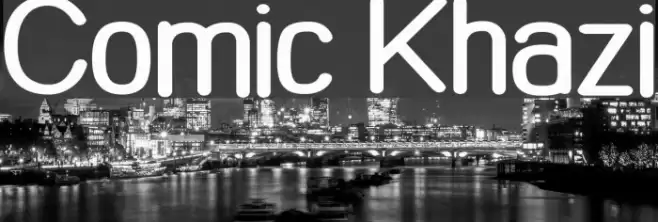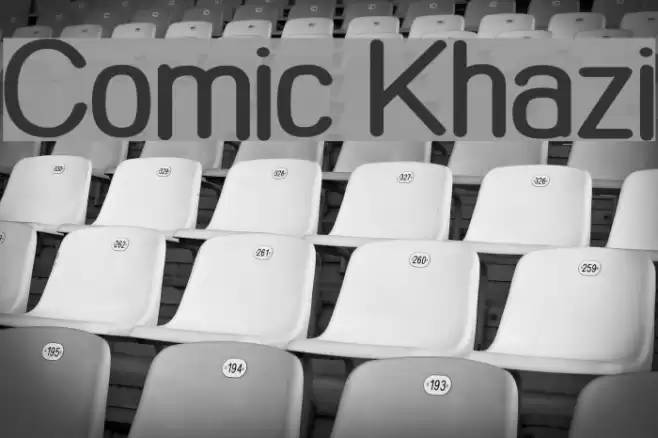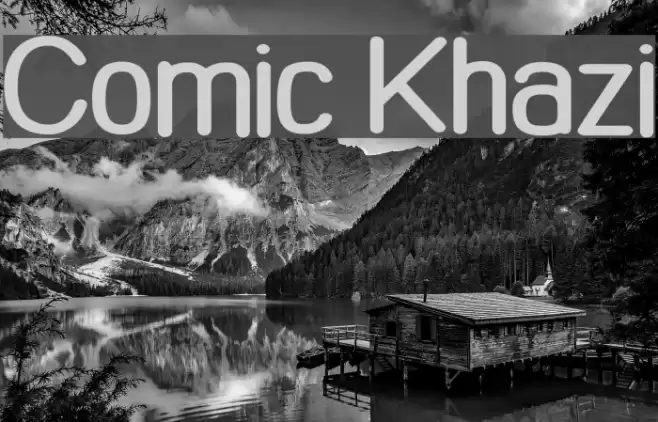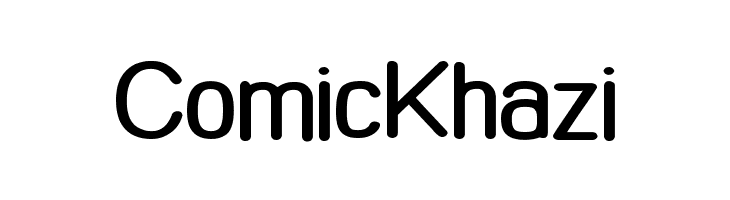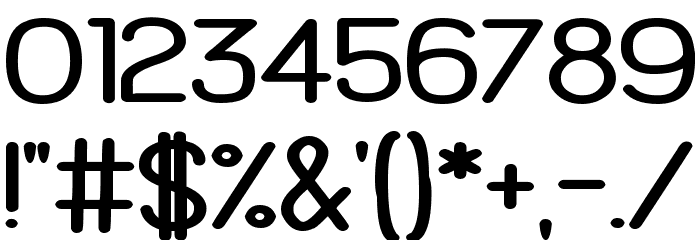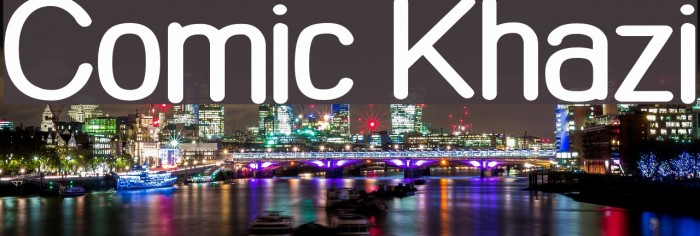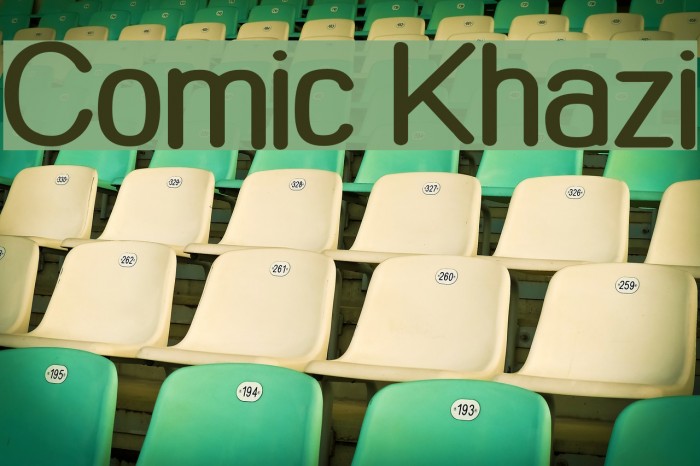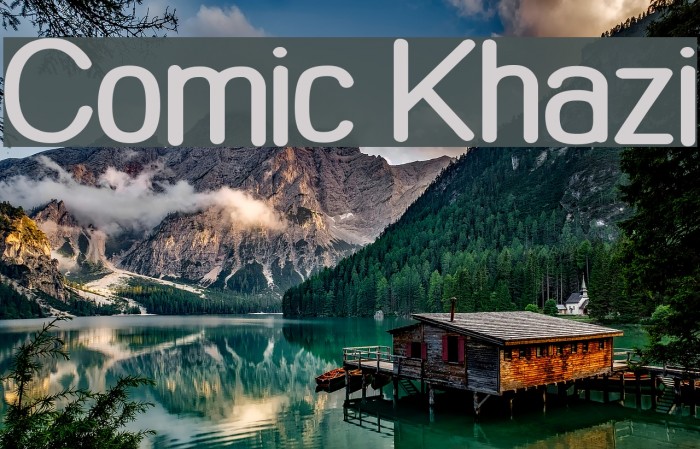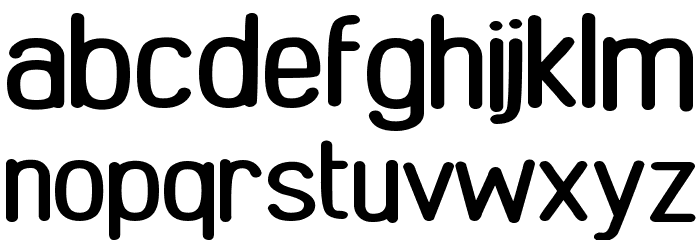
Comic Khazi
This playful and rounded font exudes a friendly and approachable vibe, making it ideal for casual and informal settings. The characters are evenly spaced with a consistent stroke width, contributing to its clean and legible appearance. Its rounded edges and smooth curves give it a soft and welcoming feel, perfect for projects that require a touch of whimsy and fun. The font maintains a uniform height across both uppercase and lowercase letters, ensuring readability and balance. Its simplicity and charm make it versatile for various creative applications.
A playful, rounded font with a friendly and approachable style.
- Proposed Projects: Ideal for children's books, comic strips, playful branding, and casual invitations.
- Overall Style: Casual
- Use Case: Headlines, Logos, Informal Text